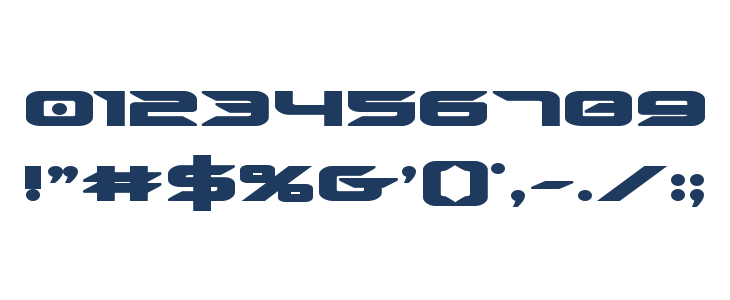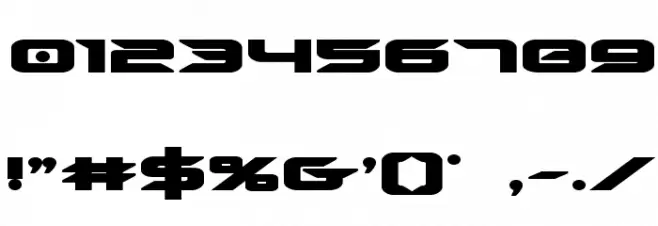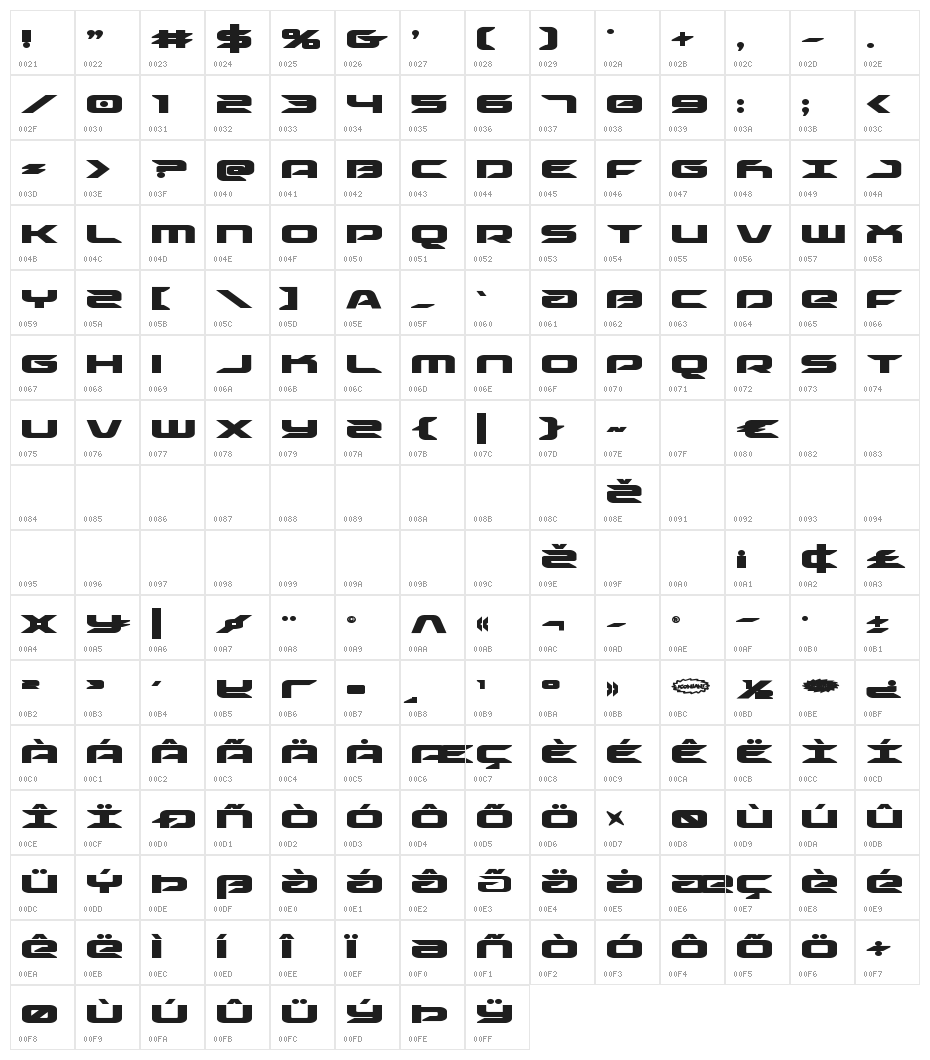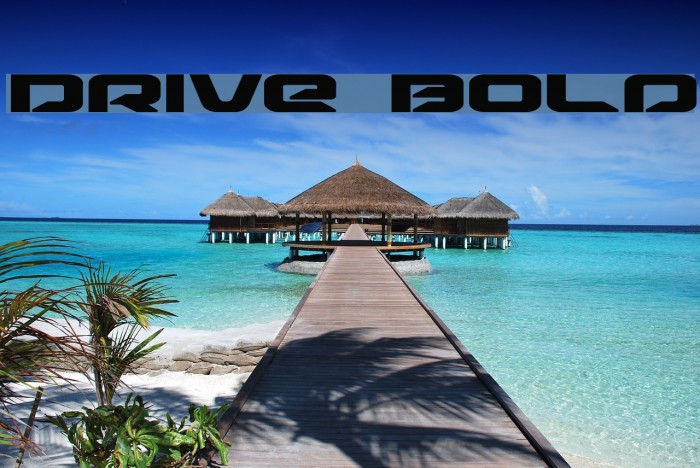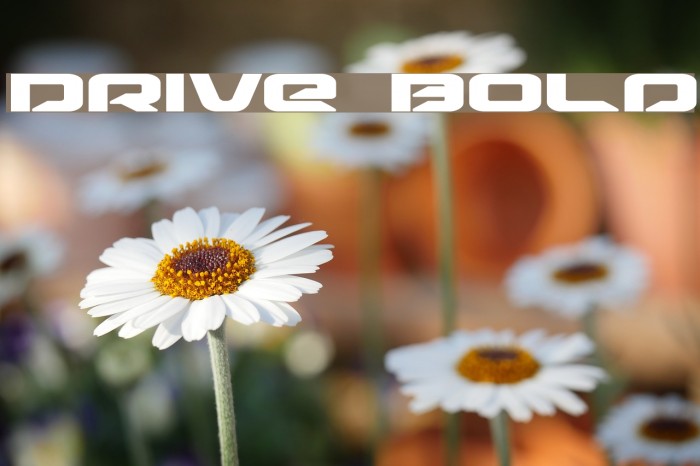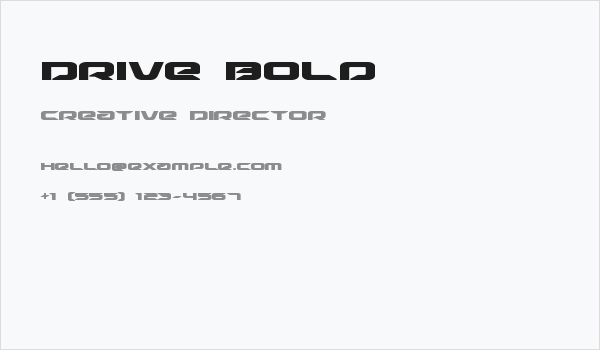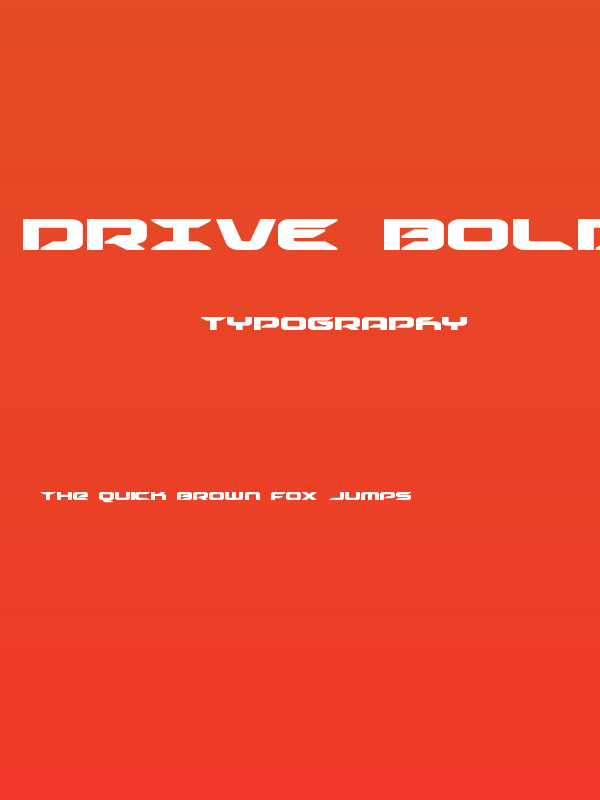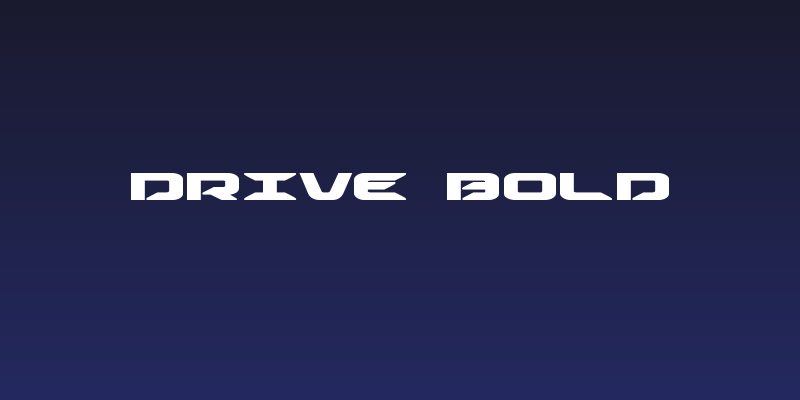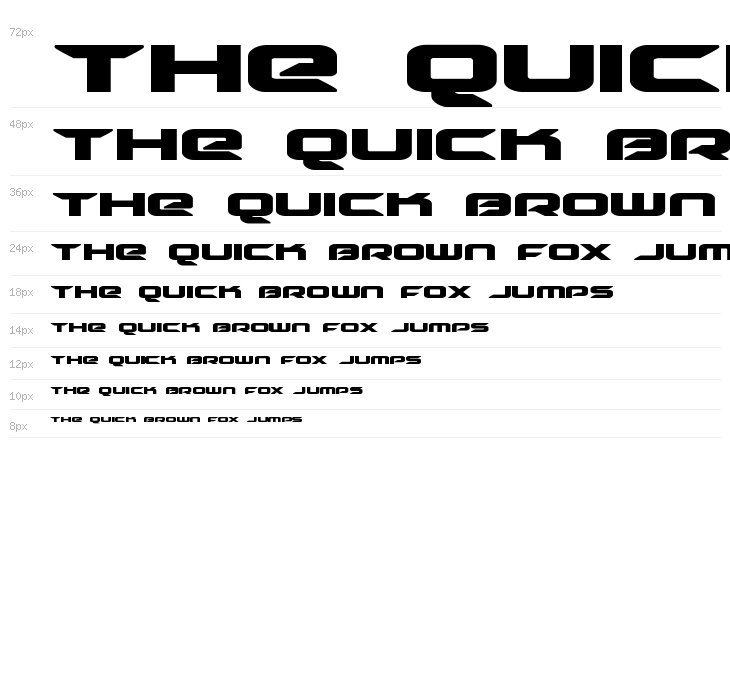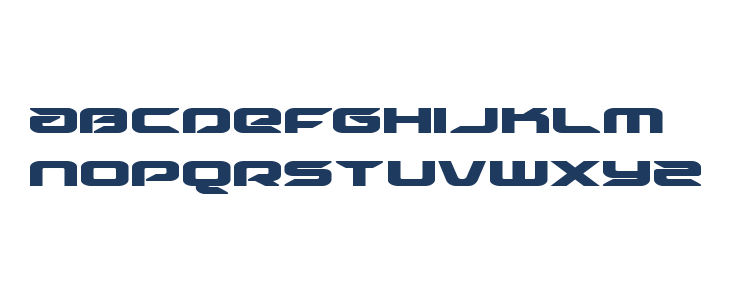
Drive Bold Font
Drive Bold Description
This font features a bold, futuristic design with angular and geometric shapes. The characters are constructed with sharp edges and a consistent thickness, giving it a strong and impactful appearance. The uppercase and lowercase letters maintain a uniform style, while the numbers and special characters complement the overall aesthetic. The font's design is reminiscent of digital or sci-fi themes, making it suitable for projects that require a modern and edgy look.